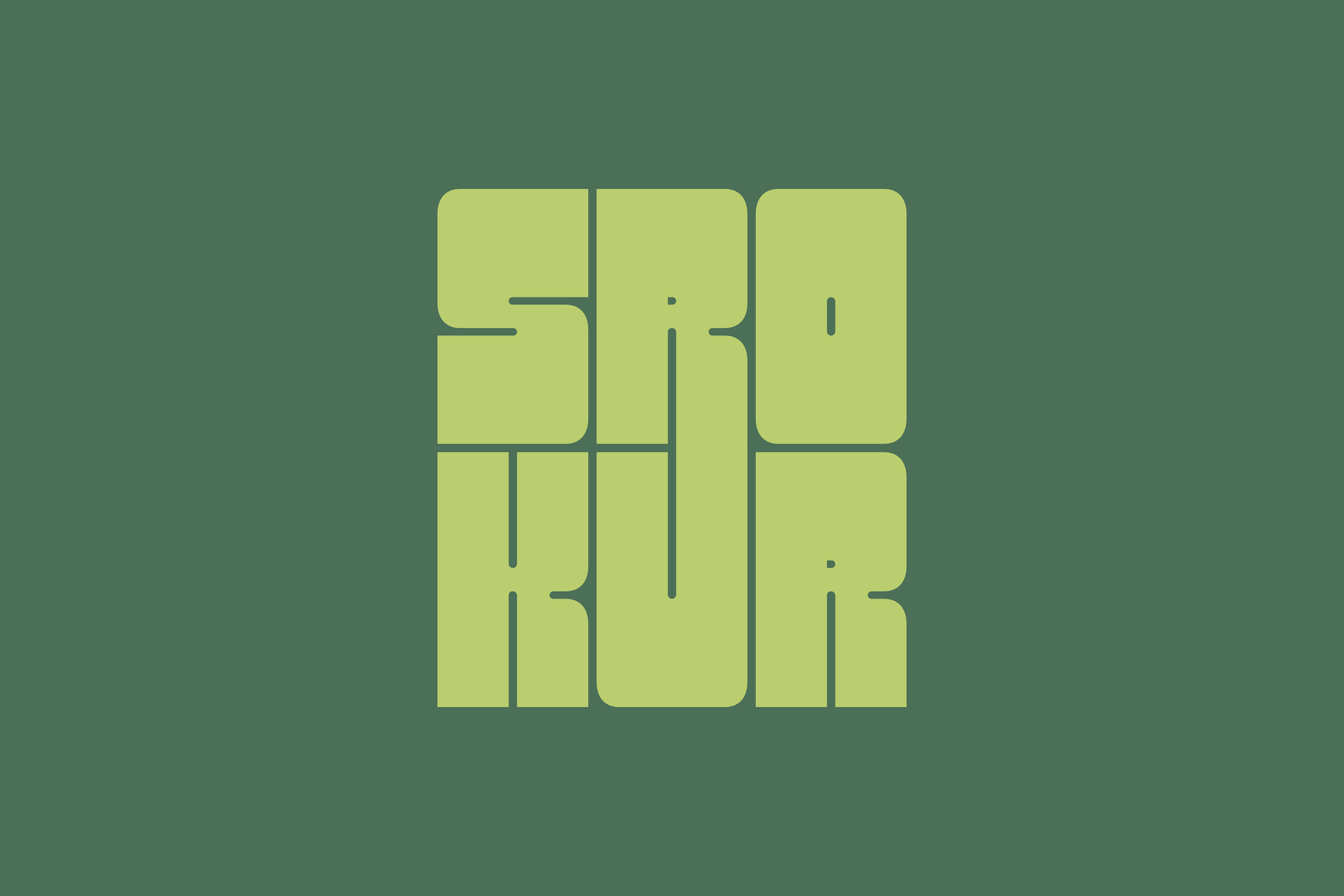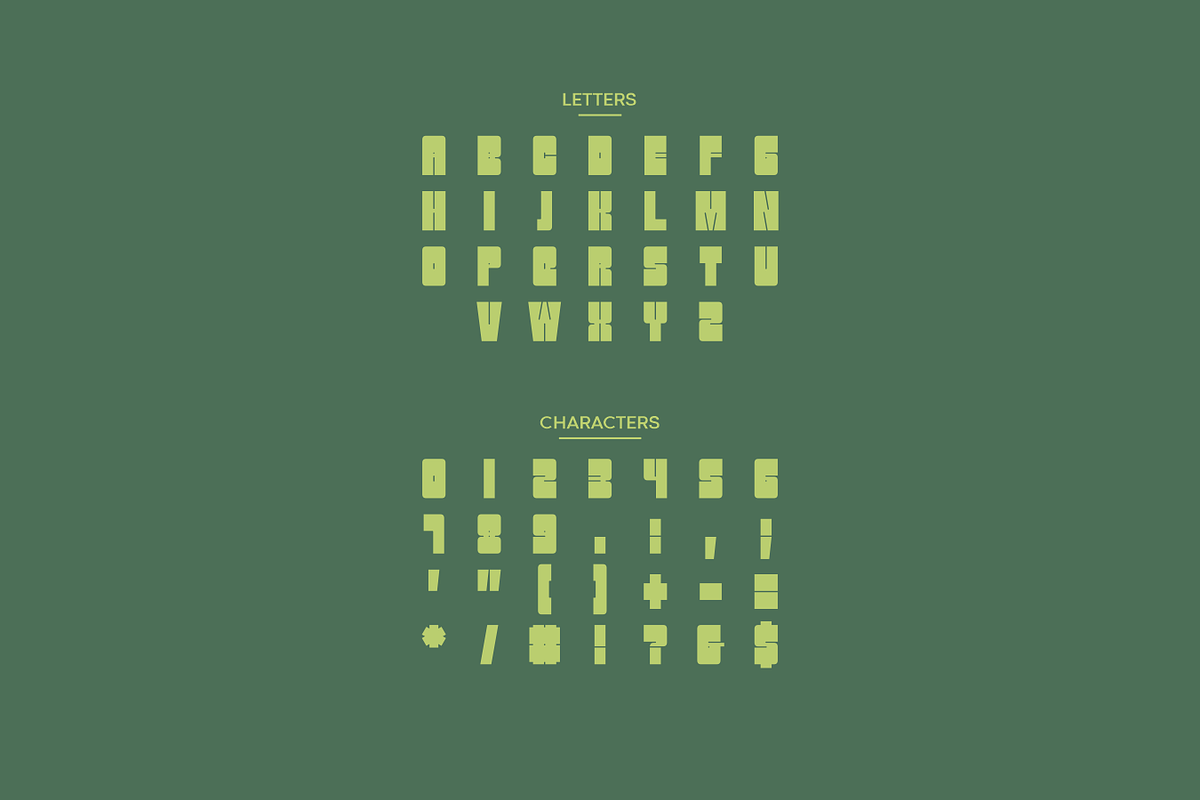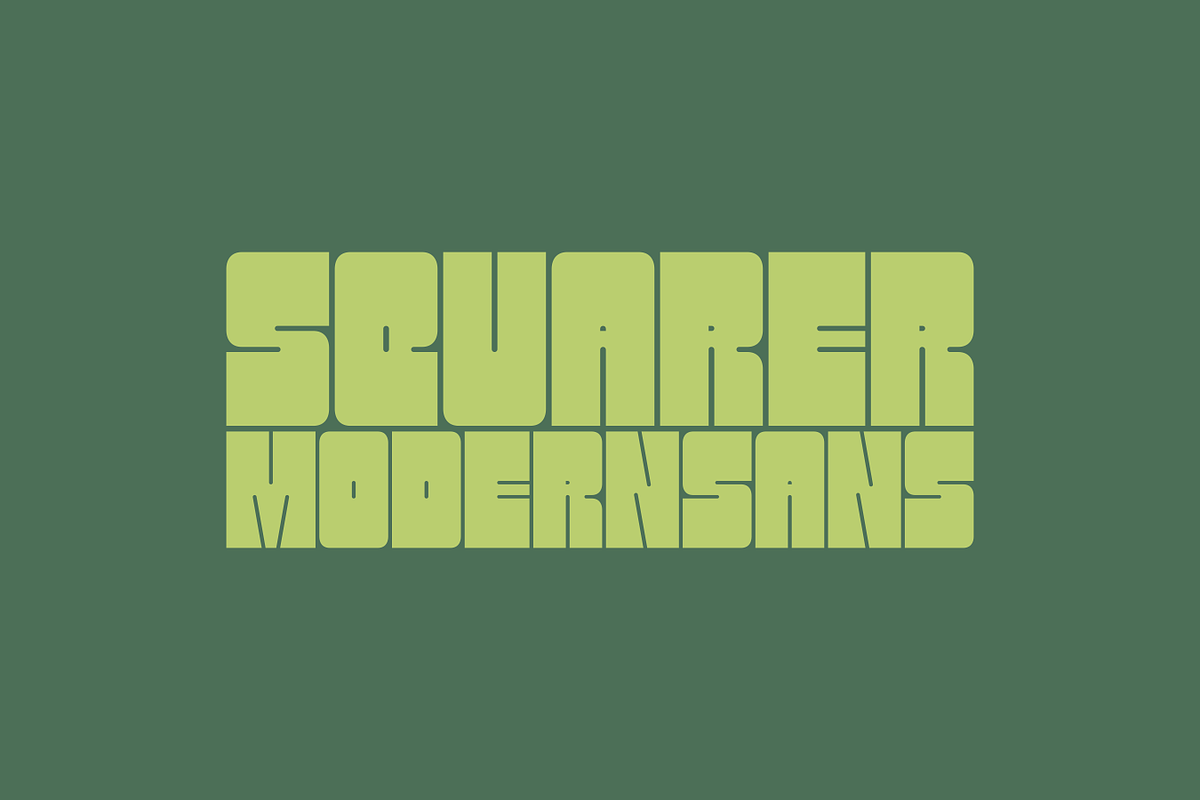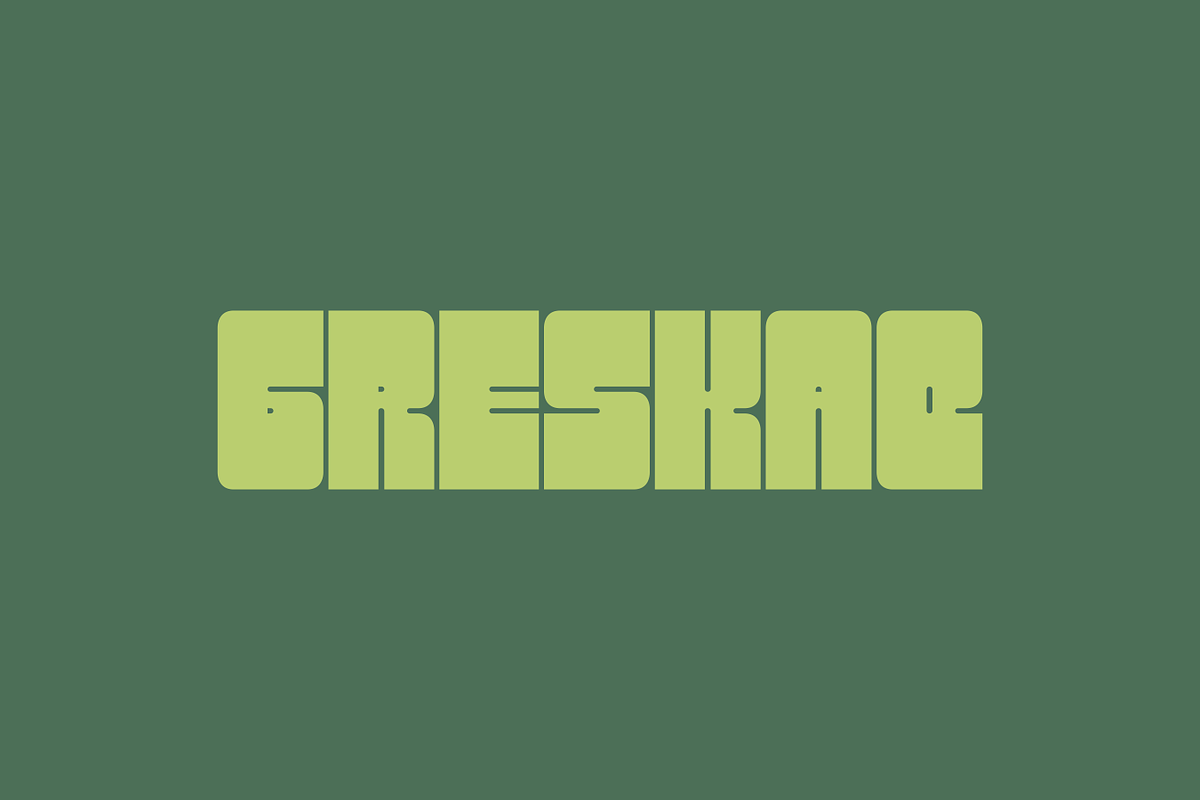
Srokur - Modern Condensed Typeface
Srokur a bold and powerful all-caps font to make your message stand out, this font can be the choice to maximize your goals. This font is is a best and authentic display font. This font can be used for your various needs, suitable for poster titles, packaging design, headlines, logotypes, motion graphics, movie titles, sports promotion and future technology.